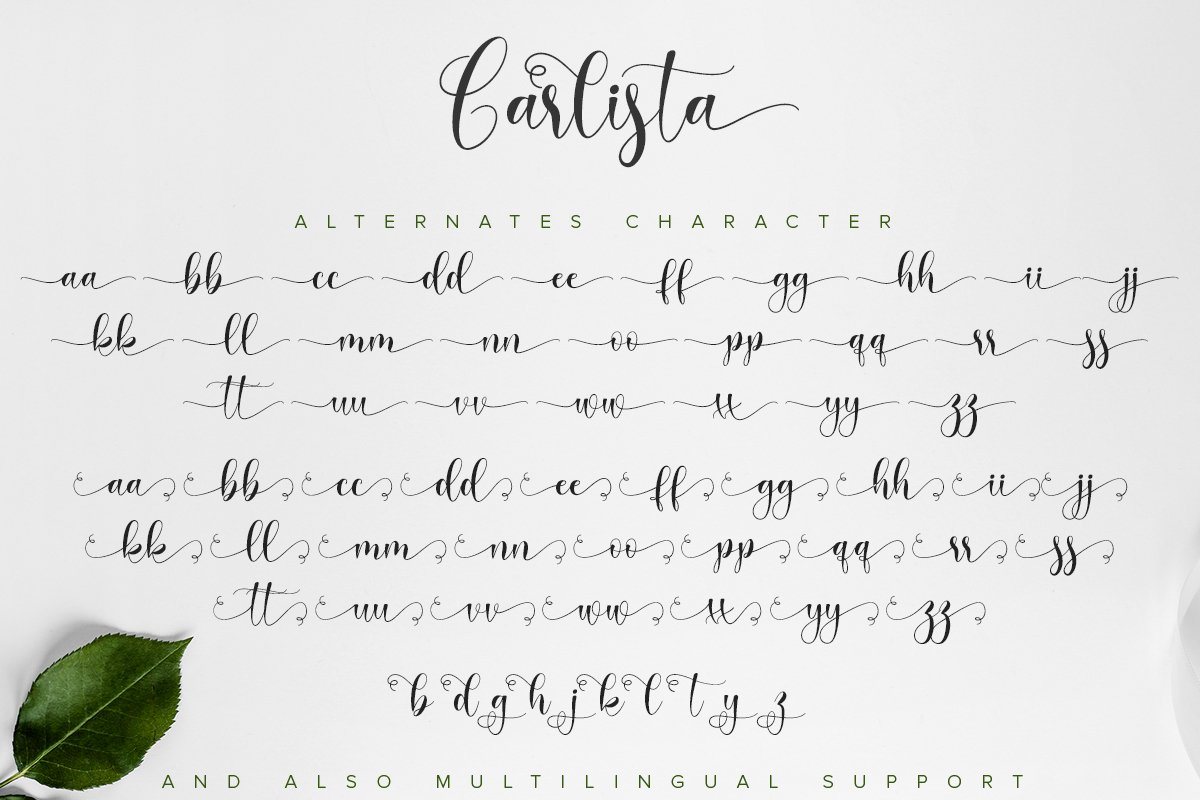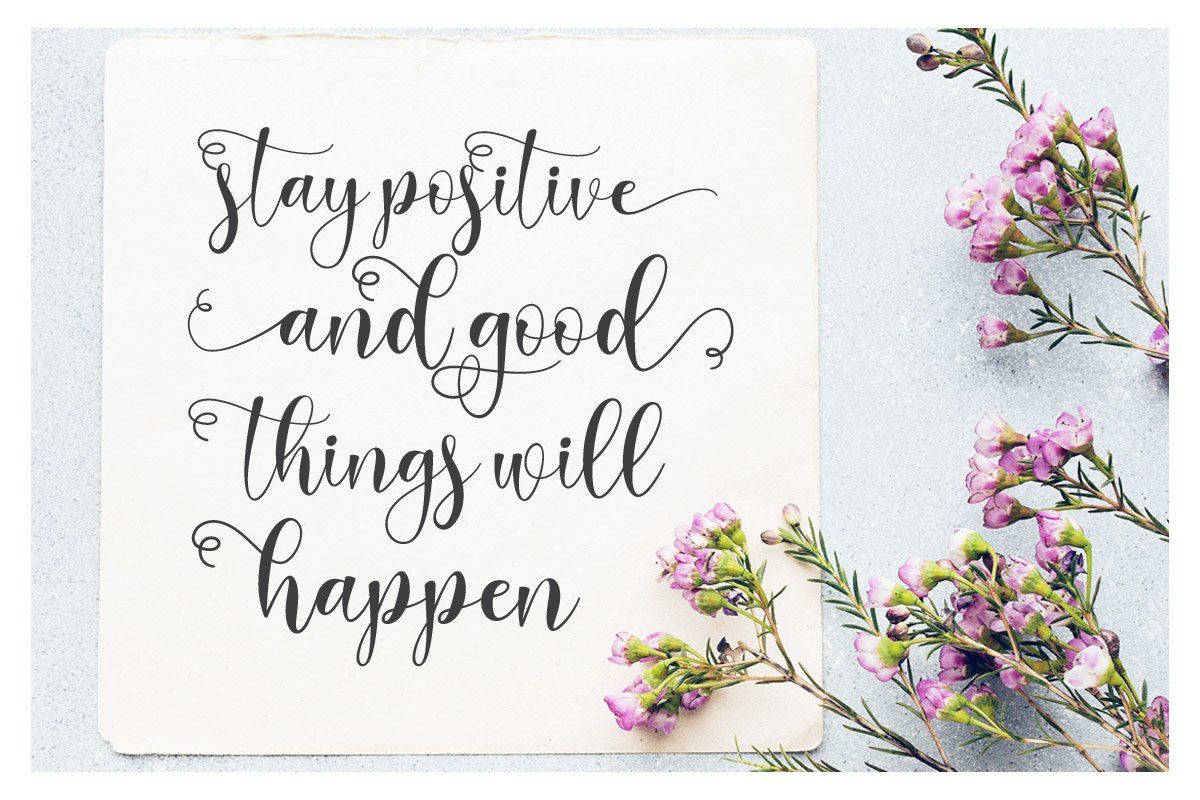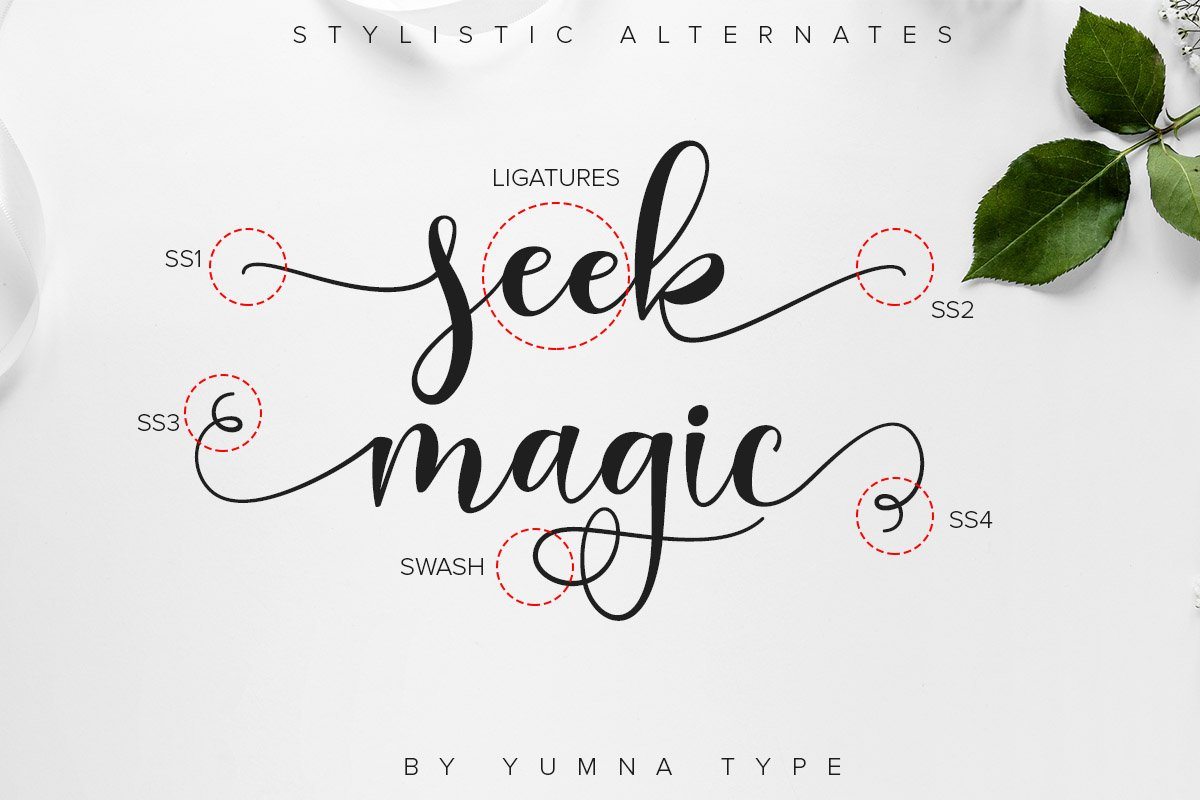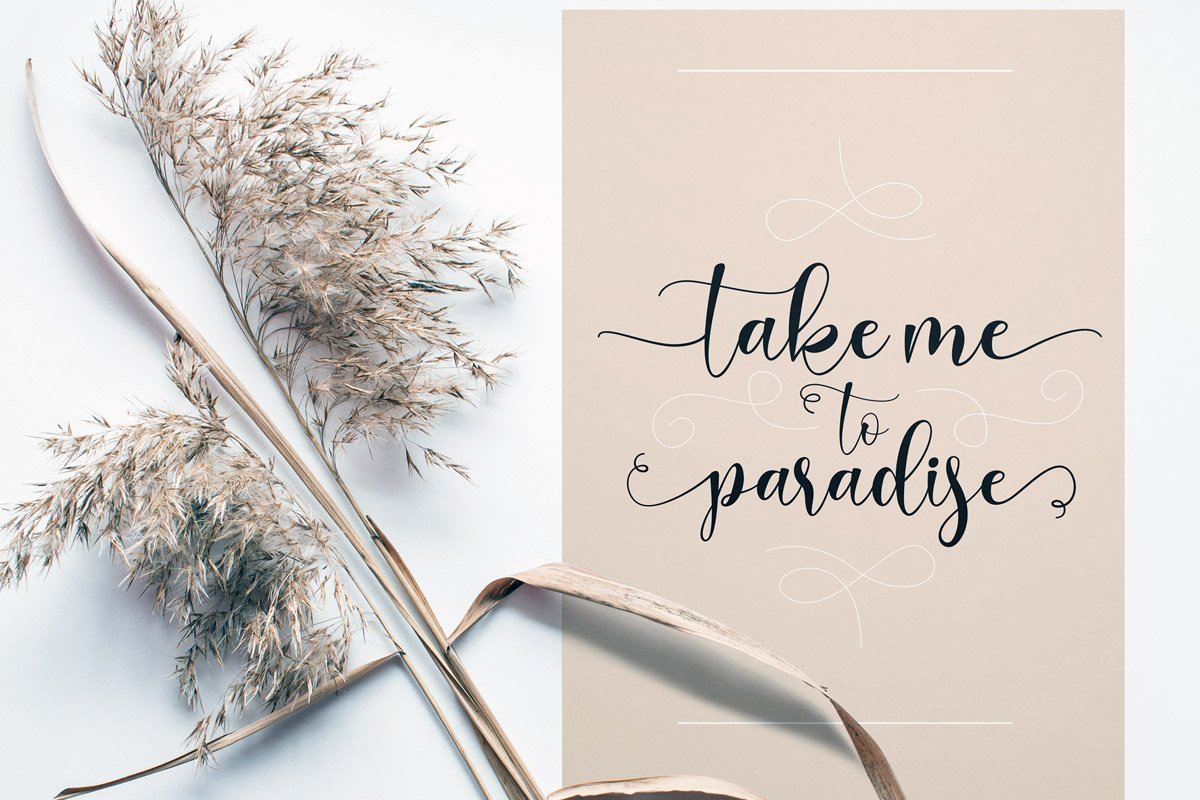
About Carlista Script
Say hello to Carlista Script. Carlista is a beautiful and modern script. It brings a beautiful and modern typeface that best used for weddings, branding, logotype, and quotes.: Includes : – Carlista (OTF,TTF,WOFF) Features : 9 Ligatures 112 Beautiful Alternates + Swashes PUA Encoded Multilingual Support Numerals and Punctuation Beginning Swash and Ending Swashes (a-z) Easy Uses Thank You for visiting our shop Have a nice day !! Yumna Type-